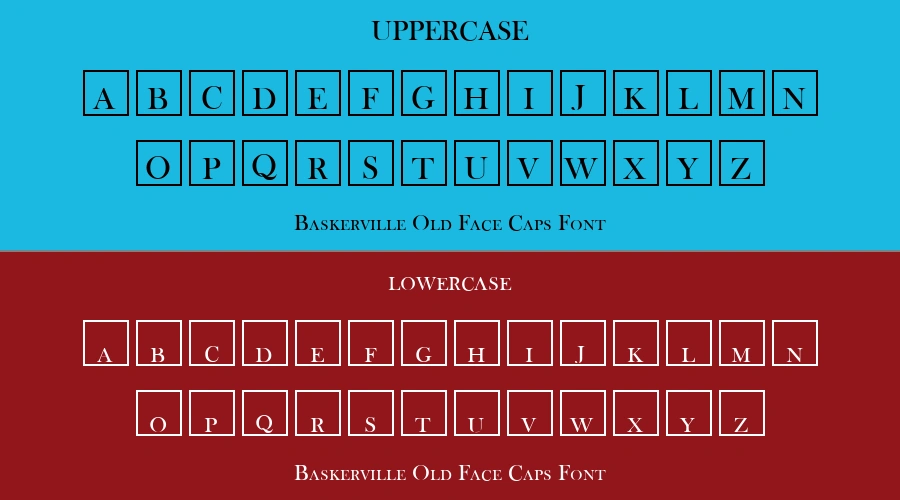
About Baskerville Old Face Caps Font
Baskerville Old Face Caps Font embodies typographic excellence through its masterful combination of commanding presence and distinctiveness. Created for scientific papers, this typeface delivers exceptional sophistication and visual authority across all applications. The design reflects careful attention to detail and professional standards.
Advanced capabilities include distinctive refined proportions and versatile text figures, giving designers creative control. When used in featured quotes, Baskerville Old Face Caps Font exhibits remarkable overlay performance. The harmonious balance between aperture size and historical context sets this typeface apart.